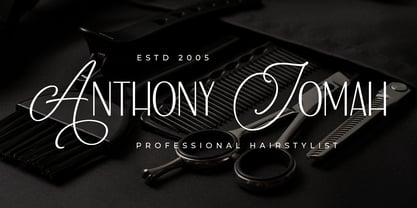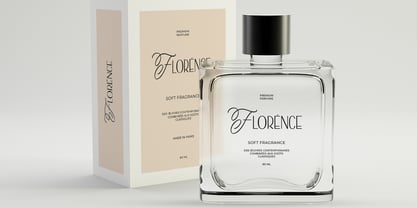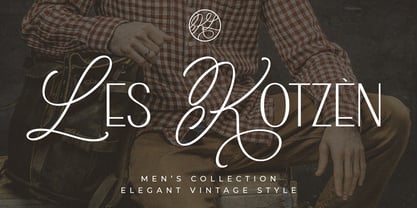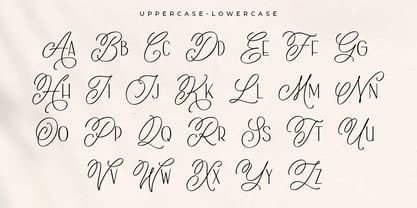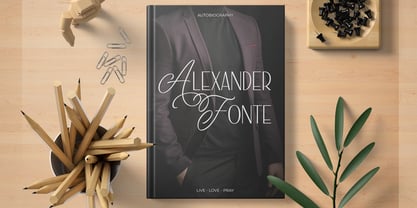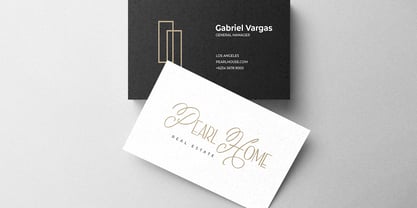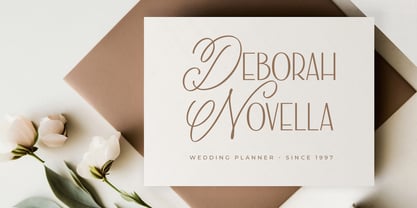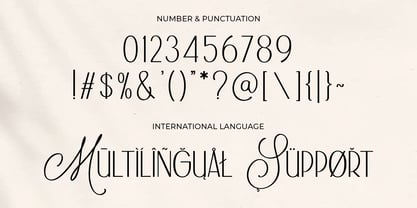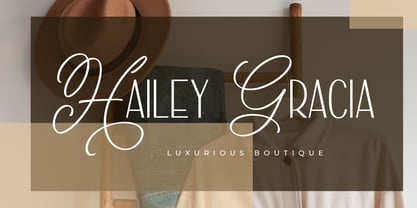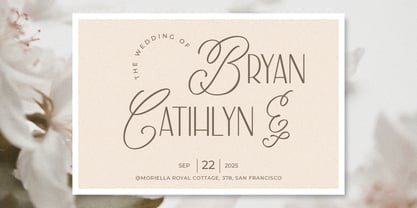
Goldshow
by Abo Daniel
The Goldshow Font Family was designed by Abo Daniel and published by Abo Daniel. Goldshow contains 1 styles. More about this family
Goldshow is a distinctive font that pairs the graceful charm of script uppercase letters with the clean simplicity of sans-serif lowercase characters. This unique combination creates a captivating balance—perfect for designs that demand both elegance and modernity.
The flowing uppercase script adds a touch of sophistication and flair, ideal for initials, logos, or attention-grabbing headings. Meanwhile, the minimalist lowercase sans-serif ensures readability and versatility across various applications, from branding and packaging to social media and wedding stationery.
Whether you're crafting a chic invitation or a contemporary brand identity, Goldshow brings a refined yet approachable style to your creative projects.